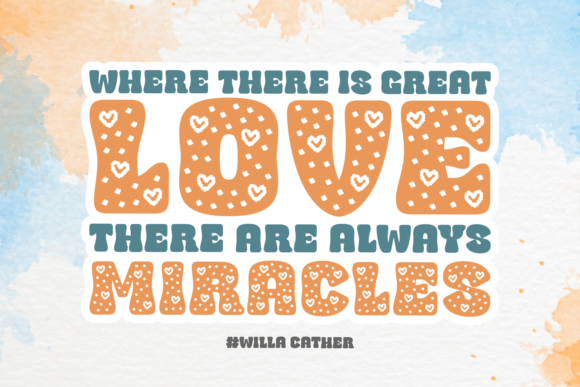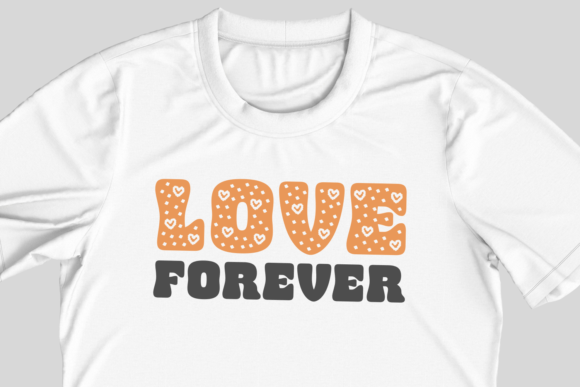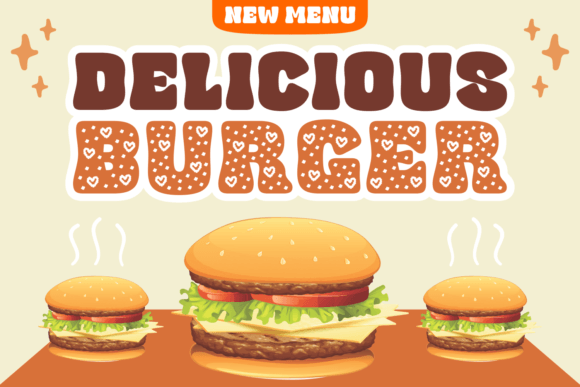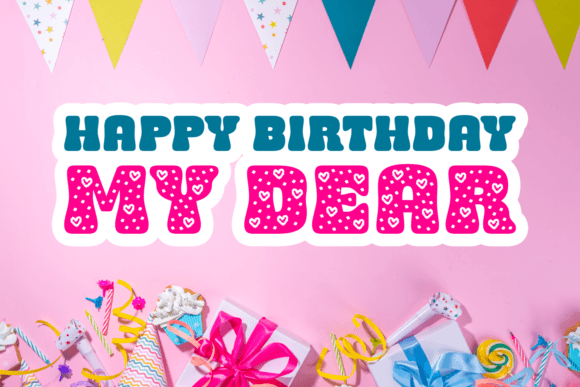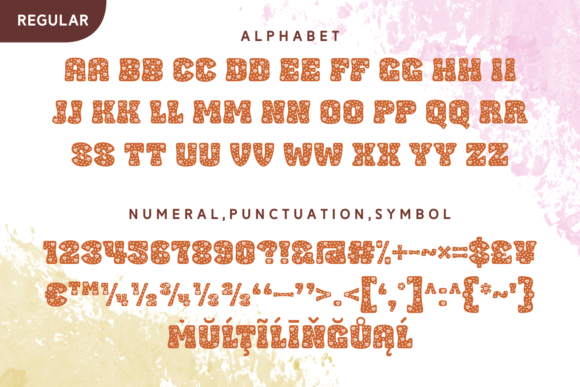
Introduction to Full Love Font
Full Love is a lovely and bright decorative font that fits great this time of the year.
Add this chunky lettered font to your designs and notice how it makes them come alive .
Key Features of Full Love Font